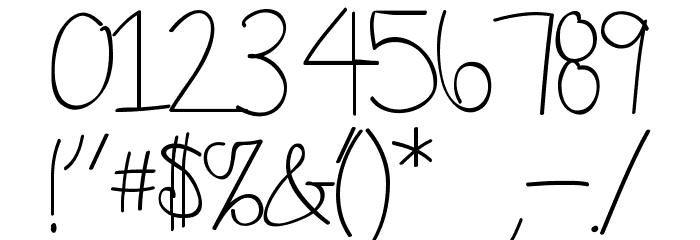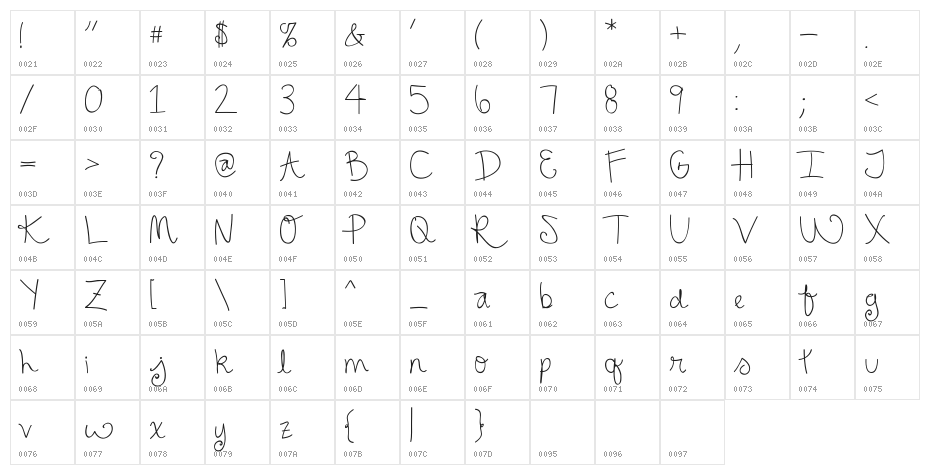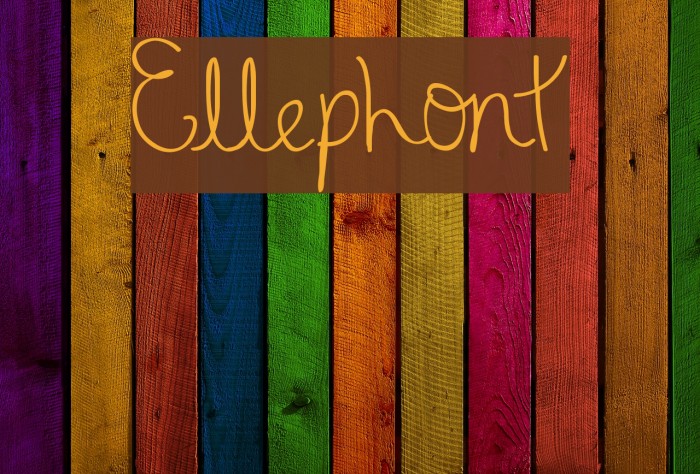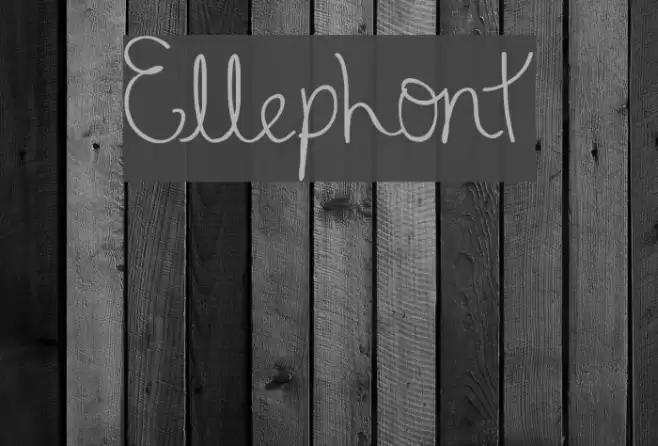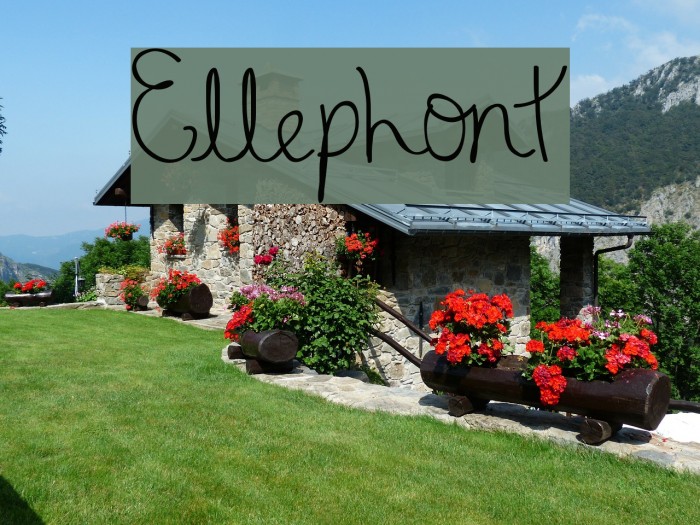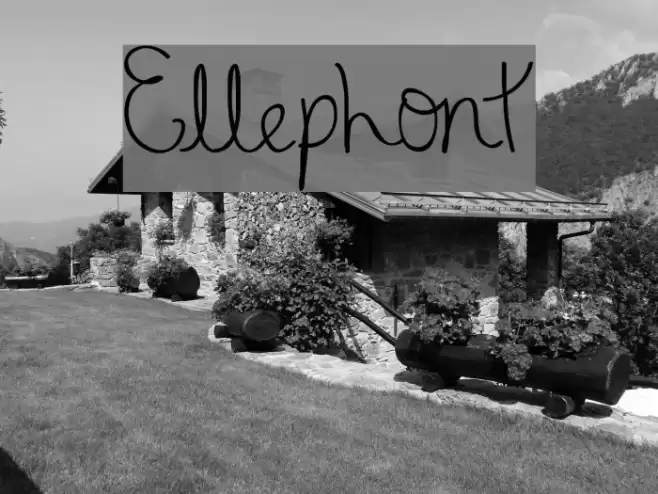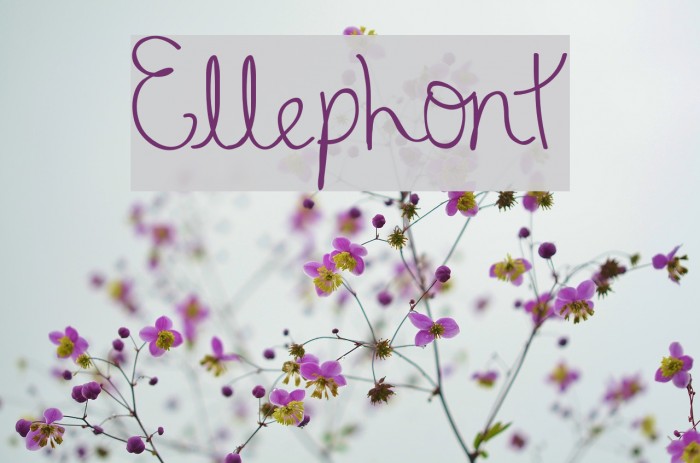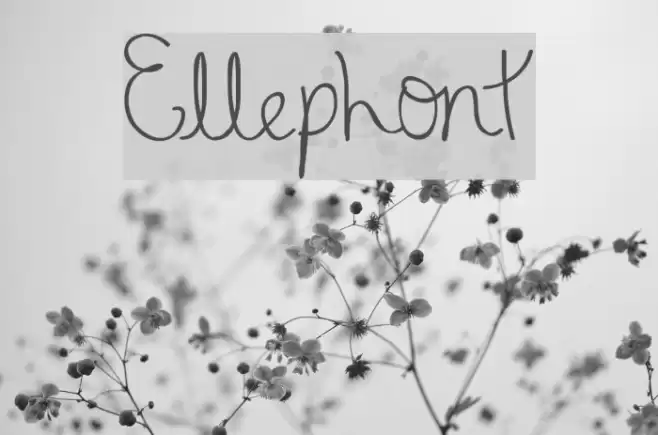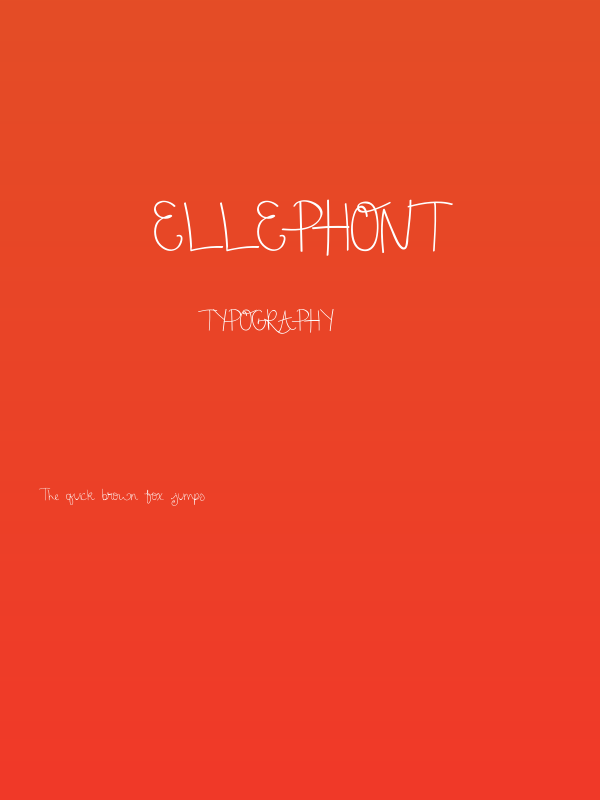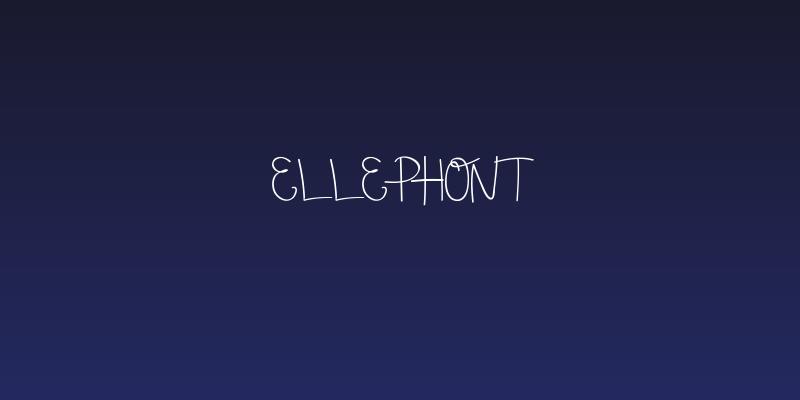
Ellephont Font
Ellephont Description
This font features a playful and whimsical handwritten style, characterized by its flowing curves and loops. The uppercase letters are tall and slightly irregular, giving a sense of spontaneity and creativity. The lowercase letters maintain a consistent style with charming curls, particularly noticeable in letters like 'g' and 'y'. Numbers are bold and clear, matching the overall playful aesthetic. Special characters are integrated seamlessly, maintaining the font's unique personality. The font's informal and friendly appearance makes it suitable for creative and artistic projects.
| Use Case | Headlines, Creative projects, Invitations |
| Proposed Projects | Ideal for greeting cards, children's books, playful branding, and creative invitations. |